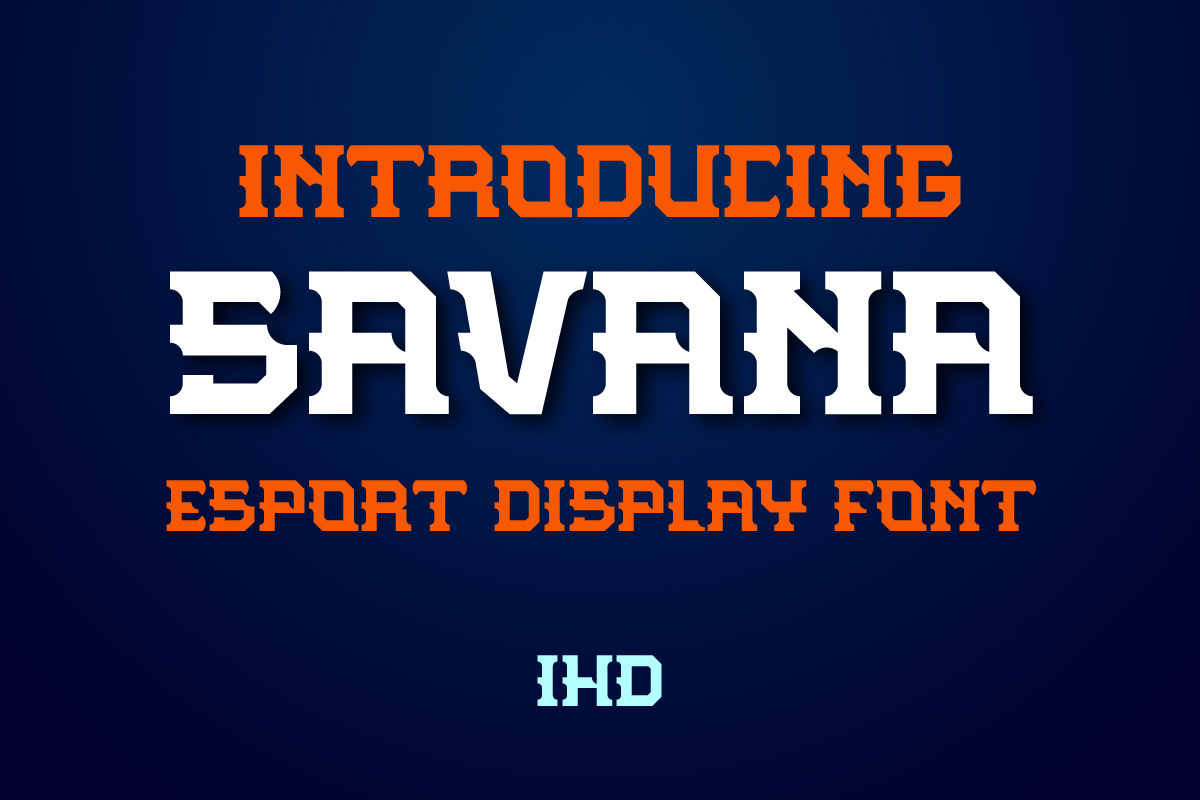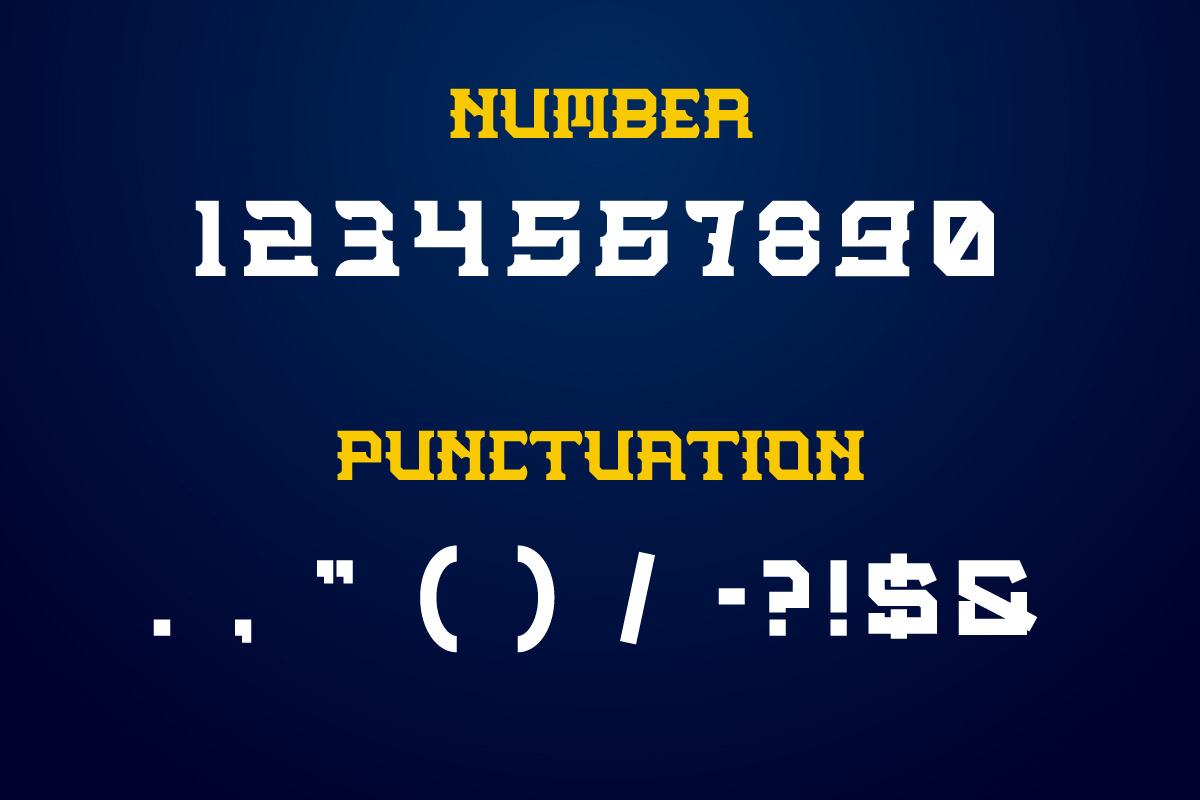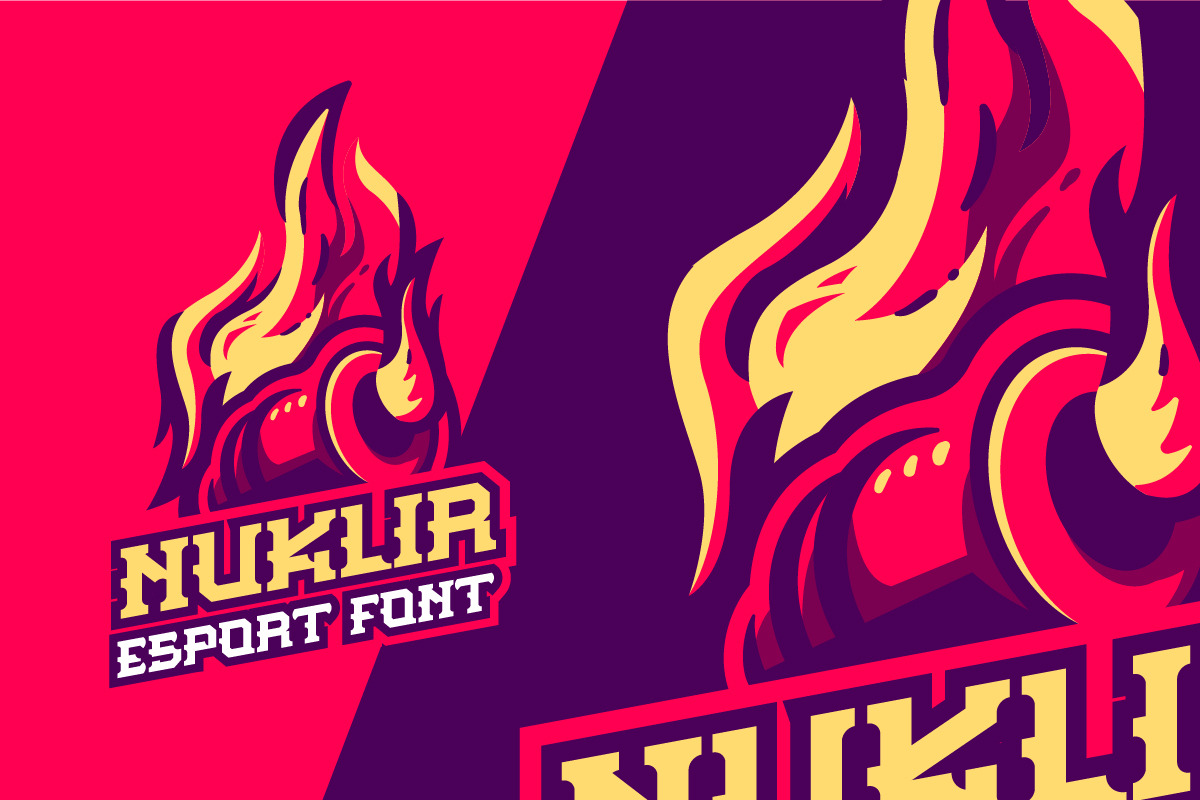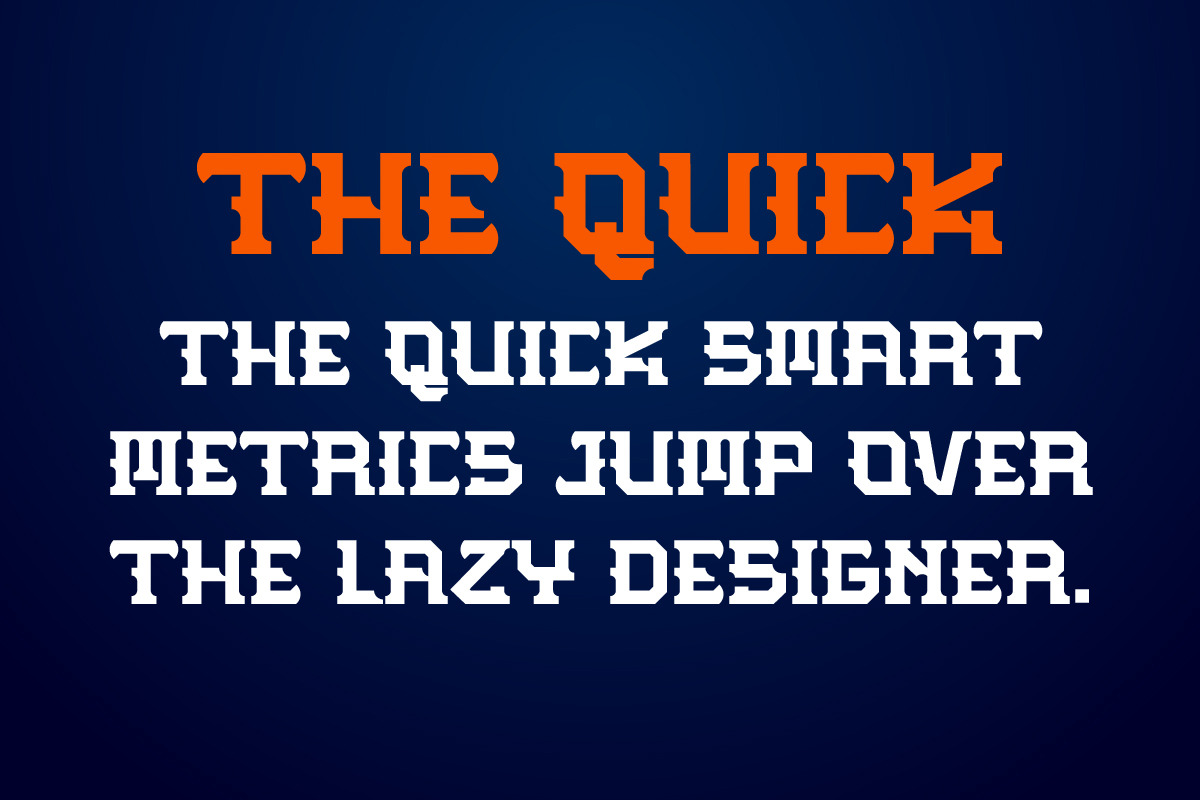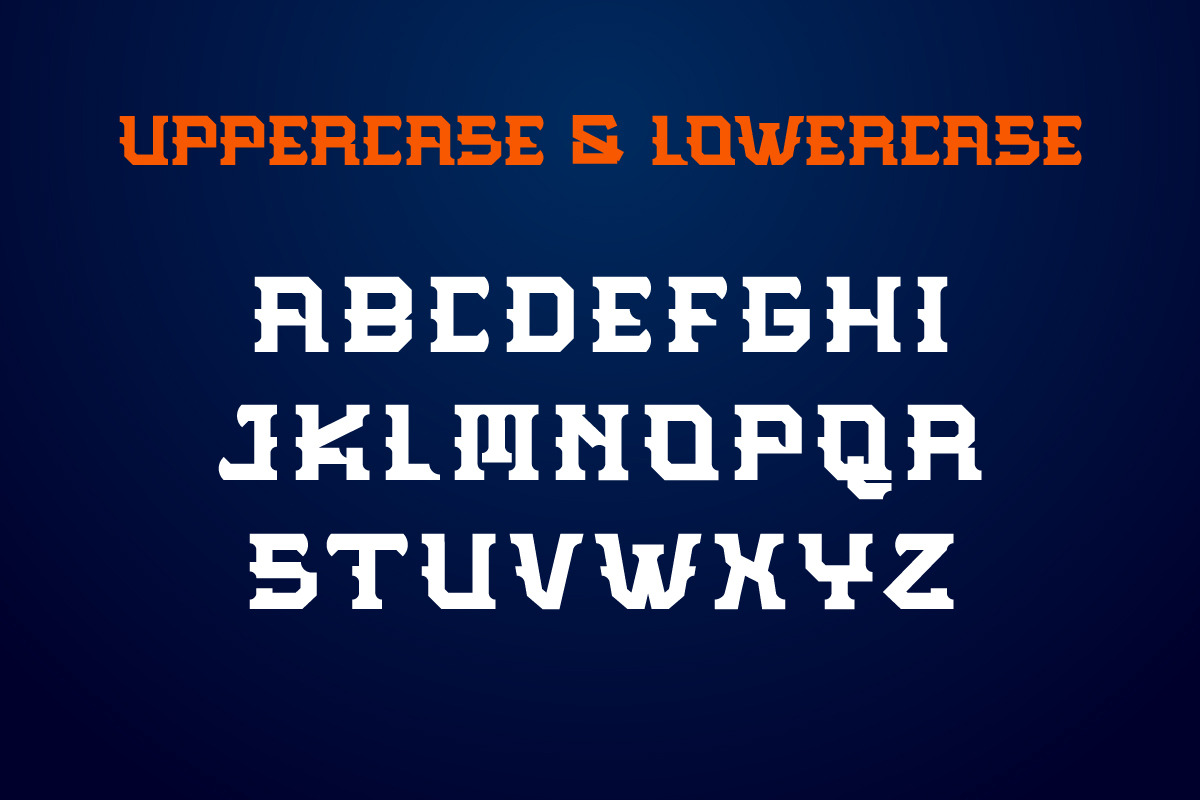
Savana Esport Display Font
Savana font is our new item that suitable for your Posters.
Great for Logo, Poster, Sticker, Jersey, Invitation Card, Brochure, etc.